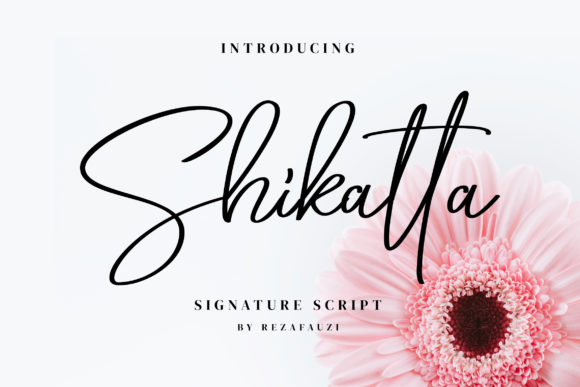
Introducing Shikatta Font, the captivating script font that will ignite your creativity and transform your crafting endeavors into enchanting masterpieces. Each character, meticulously crafted by the talented Grezline Studio, exudes an undeniable charm that will elevate your designs to new heights.
Shikatta Font is a symphony of flowing curves and elegant swirls that will effortlessly add a touch of romance to any project. Its versatility knows no bounds, making it the perfect choice for a wide array of crafting projects, from heartfelt love letters to whimsical invitations.
With Shikatta Font, you hold the power to express your emotions with unparalleled grace and flair. Its enchanting aesthetic will captivate your audience, leaving a lasting impression that will steal their hearts. Embrace the allure of Shikatta Font and let your creativity soar to unimaginable heights.
Indulge in the beauty of Shikatta Font and witness how its enchanting presence transforms your crafting projects into works of art. Its delicate touch will inspire romance, its flowing curves will evoke elegance, and its captivating charm will leave an indelible mark on the hearts of all who behold it.
Unlock the boundless potential of Shikatta Font and embark on a creative journey that will ignite your imagination and leave a lasting legacy of beauty.